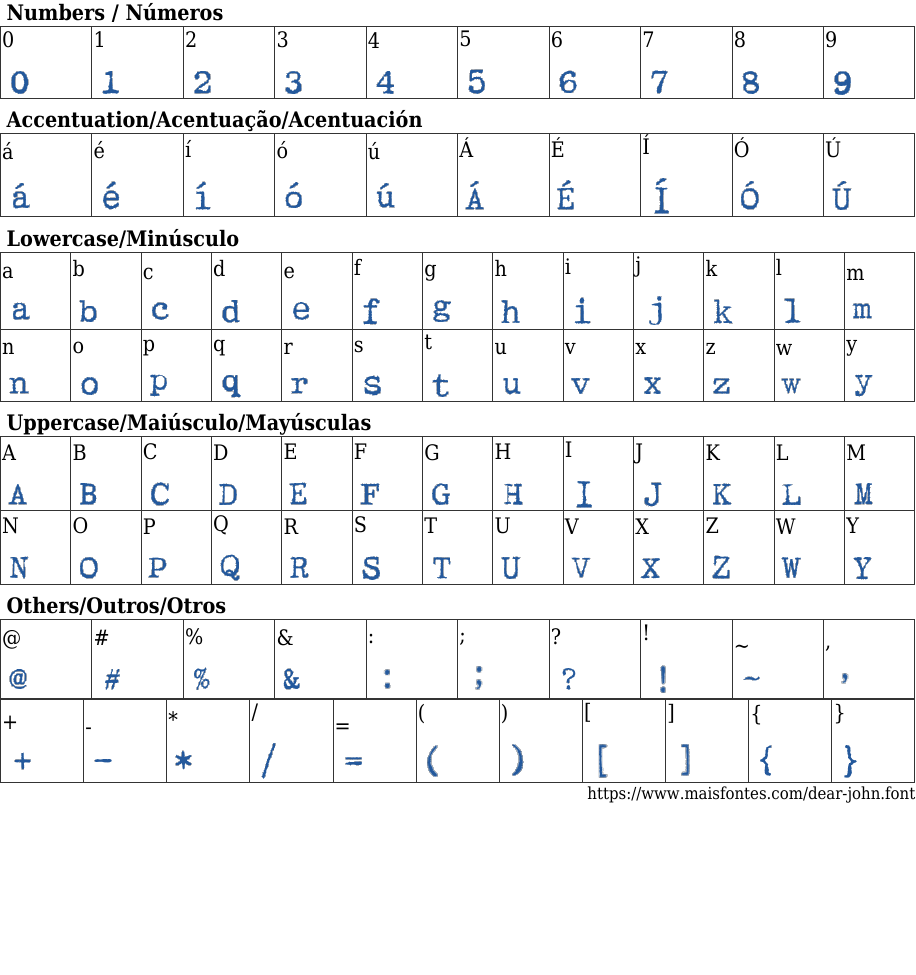
Dear John Font
Dear John Font - The time is now 11:10. Typewriter simulation with slight inking imperfections. The font for her song dear john in the speak now album booklet.
Typewriter simulation with slight inking imperfections. The font for her song dear john in the speak now album booklet. The time is now 11:10. Typewriter simulation with slight inking imperfections.
Typewriter simulation with slight inking imperfections. The time is now 11:10. Typewriter simulation with slight inking imperfections. The font for her song dear john in the speak now album booklet.
The font for her song dear john in the speak now album booklet. Typewriter simulation with slight inking imperfections. The time is now 11:10.
The time is now 11:10. Typewriter simulation with slight inking imperfections. The font for her song dear john in the speak now album booklet. Typewriter simulation with slight inking imperfections.
Typewriter simulation with slight inking imperfections. The time is now 11:10. The font for her song dear john in the speak now album booklet.
Typewriter simulation with slight inking imperfections. The font for her song dear john in the speak now album booklet. The time is now 11:10. Typewriter simulation with slight inking imperfections.
The font for her song dear john in the speak now album booklet. Typewriter simulation with slight inking imperfections. The time is now 11:10. Typewriter simulation with slight inking imperfections.
The font for her song dear john in the speak now album booklet. The time is now 11:10. Typewriter simulation with slight inking imperfections. Typewriter simulation with slight inking imperfections.
The time is now 11:10. Typewriter simulation with slight inking imperfections. The font for her song dear john in the speak now album booklet. Typewriter simulation with slight inking imperfections.
Typewriter simulation with slight inking imperfections. The time is now 11:10. The font for her song dear john in the speak now album booklet.
The font for her song dear john in the speak now album booklet. The time is now 11:10. Typewriter simulation with slight inking imperfections. Typewriter simulation with slight inking imperfections.
Typewriter Simulation With Slight Inking Imperfections.
The font for her song dear john in the speak now album booklet. Typewriter simulation with slight inking imperfections. The time is now 11:10.